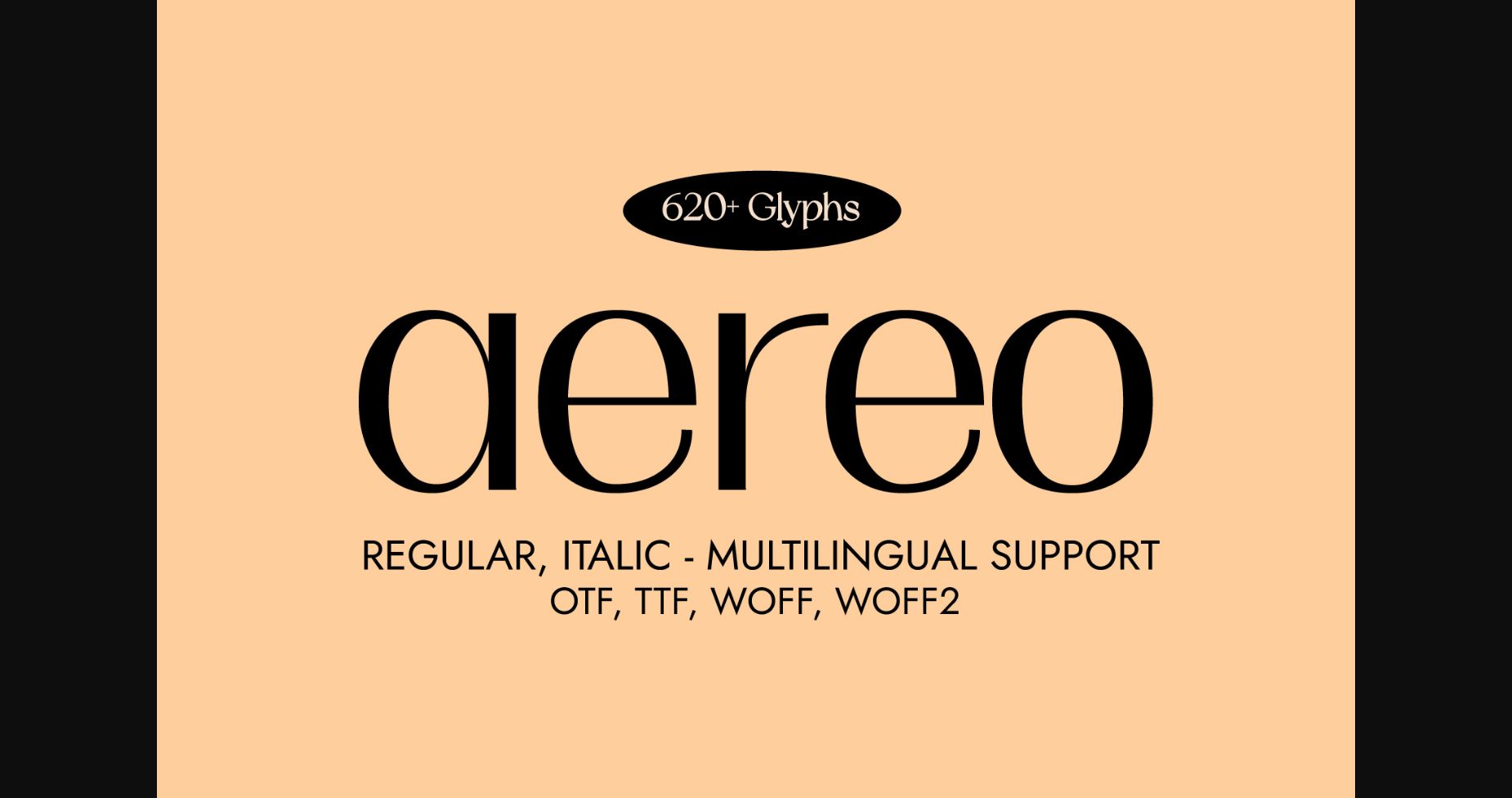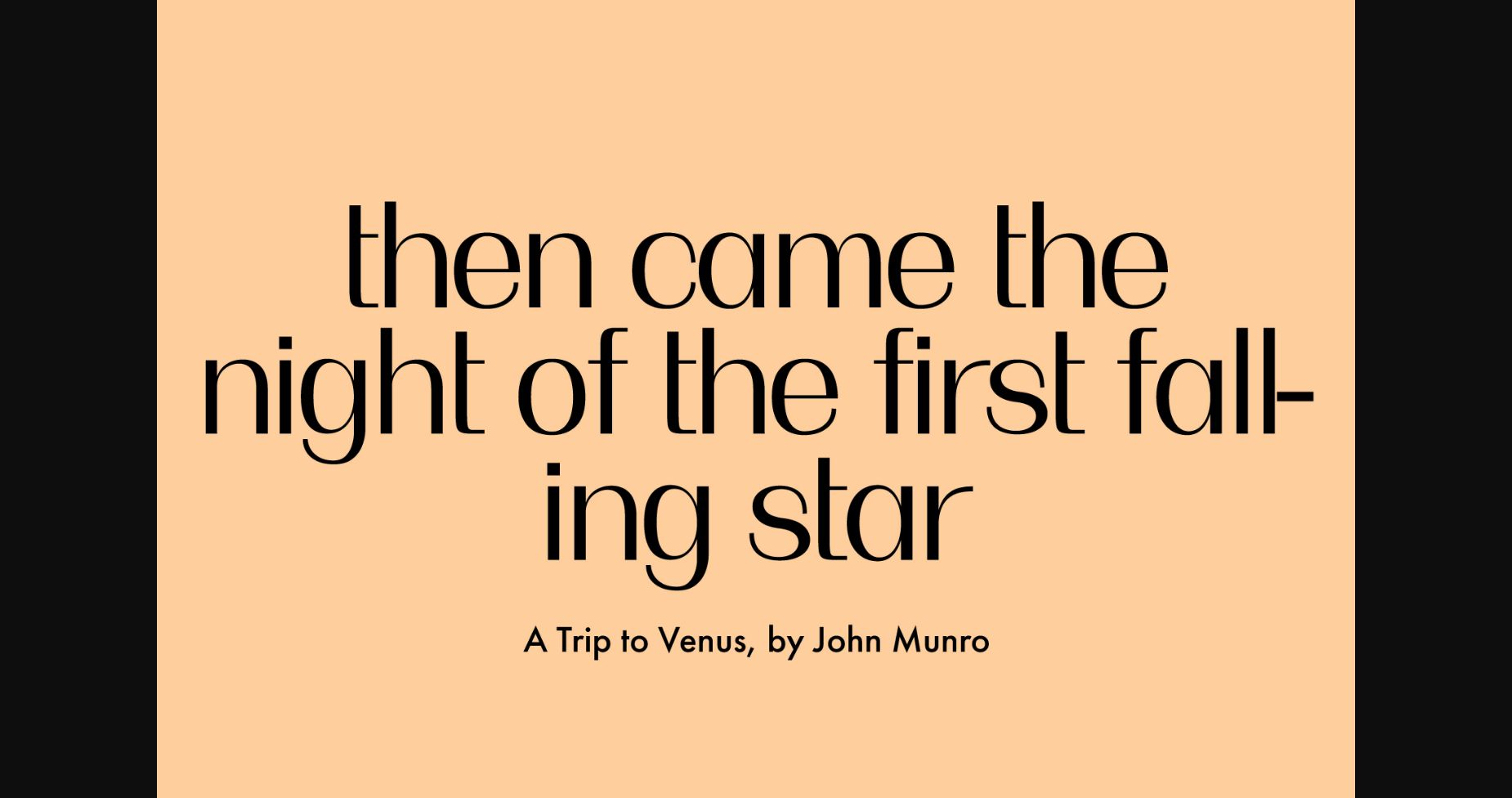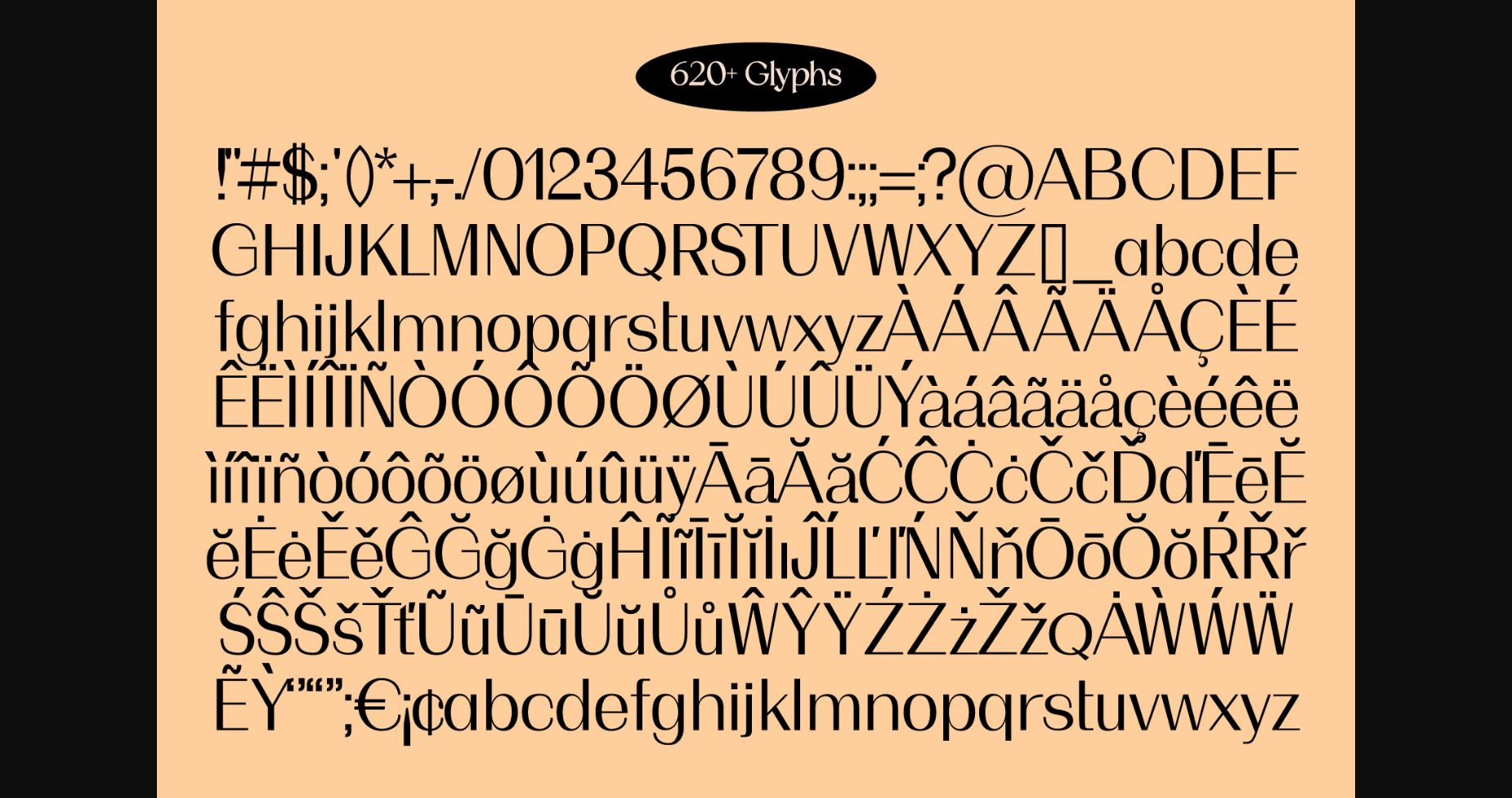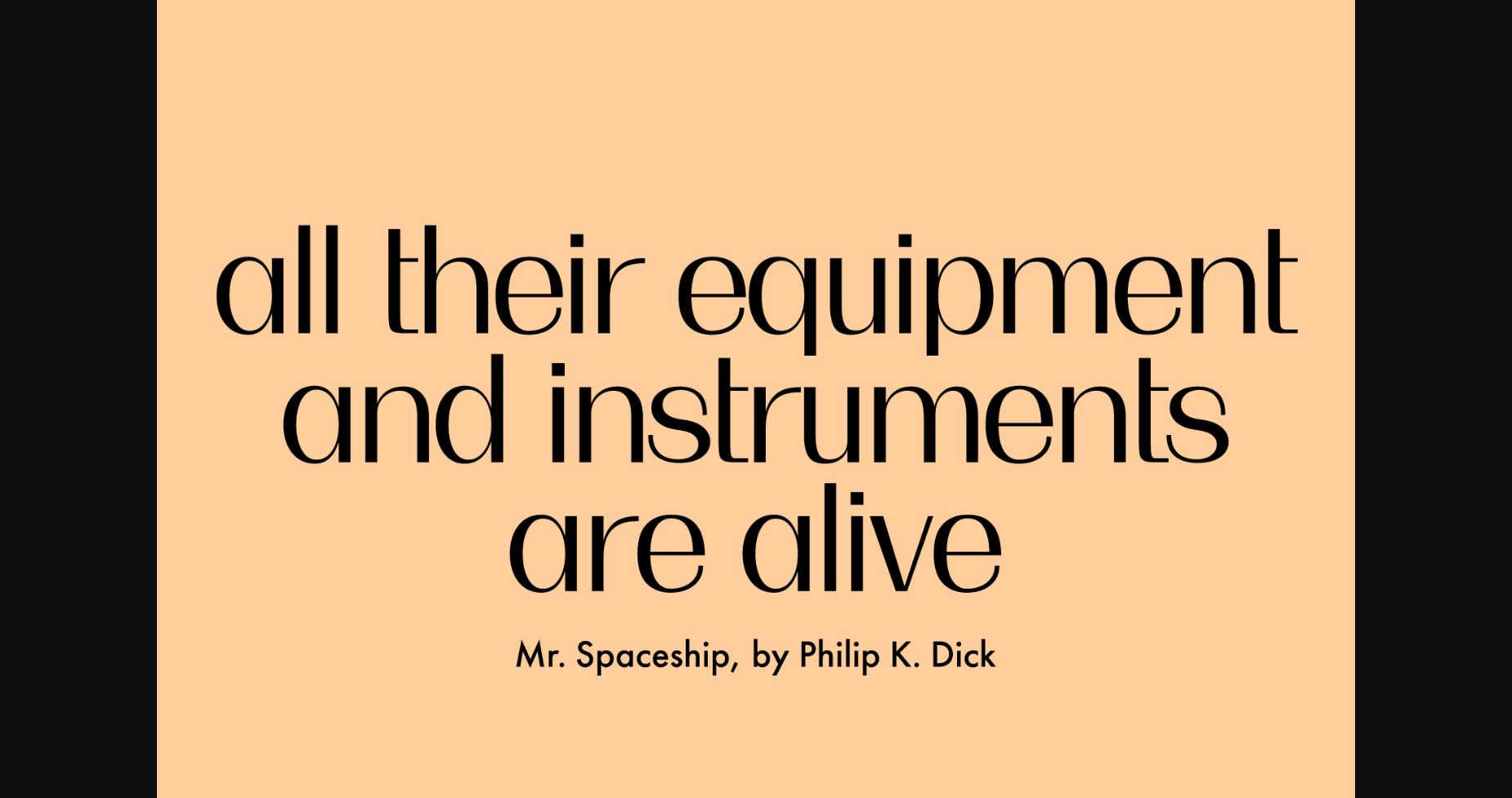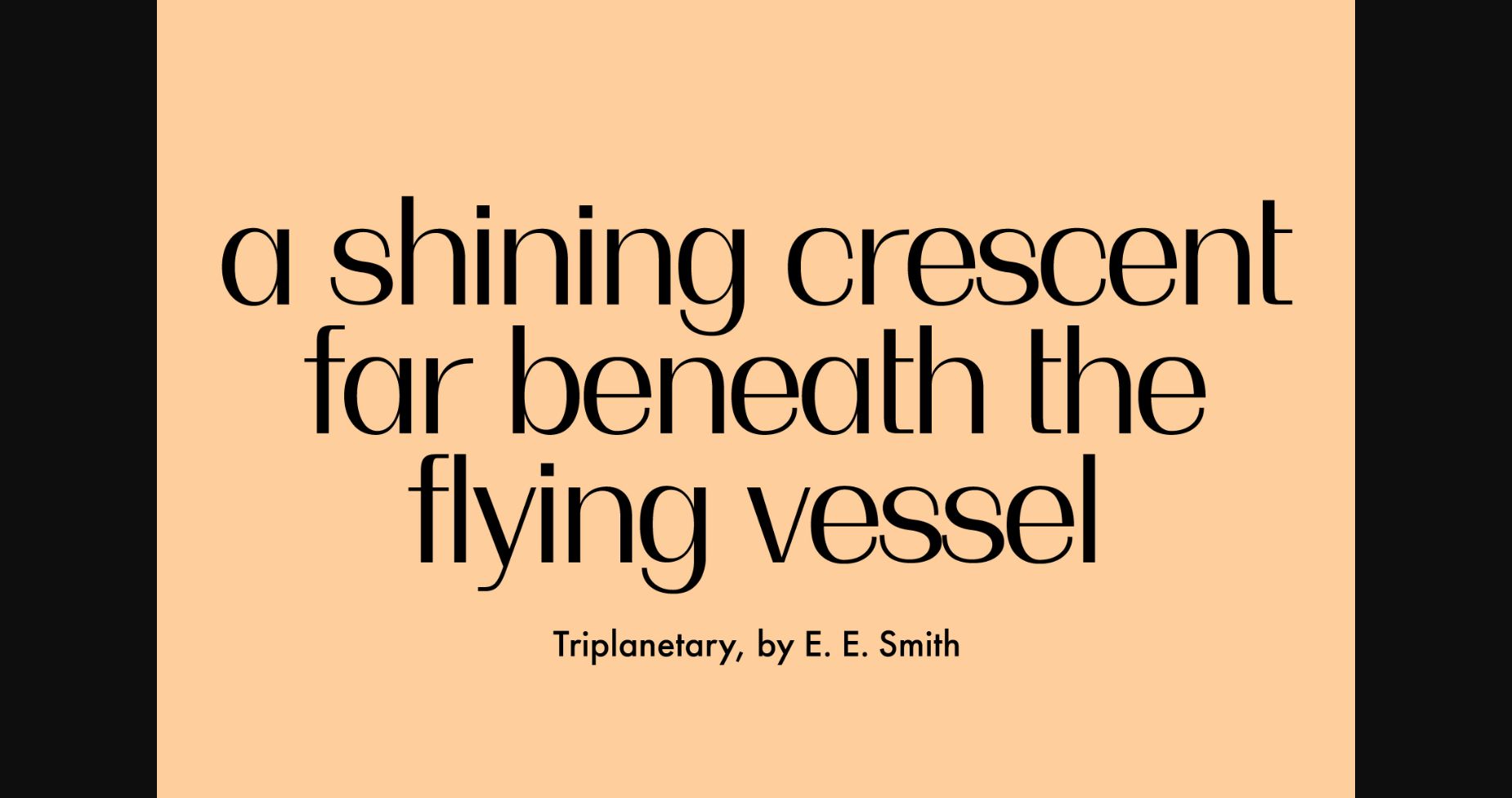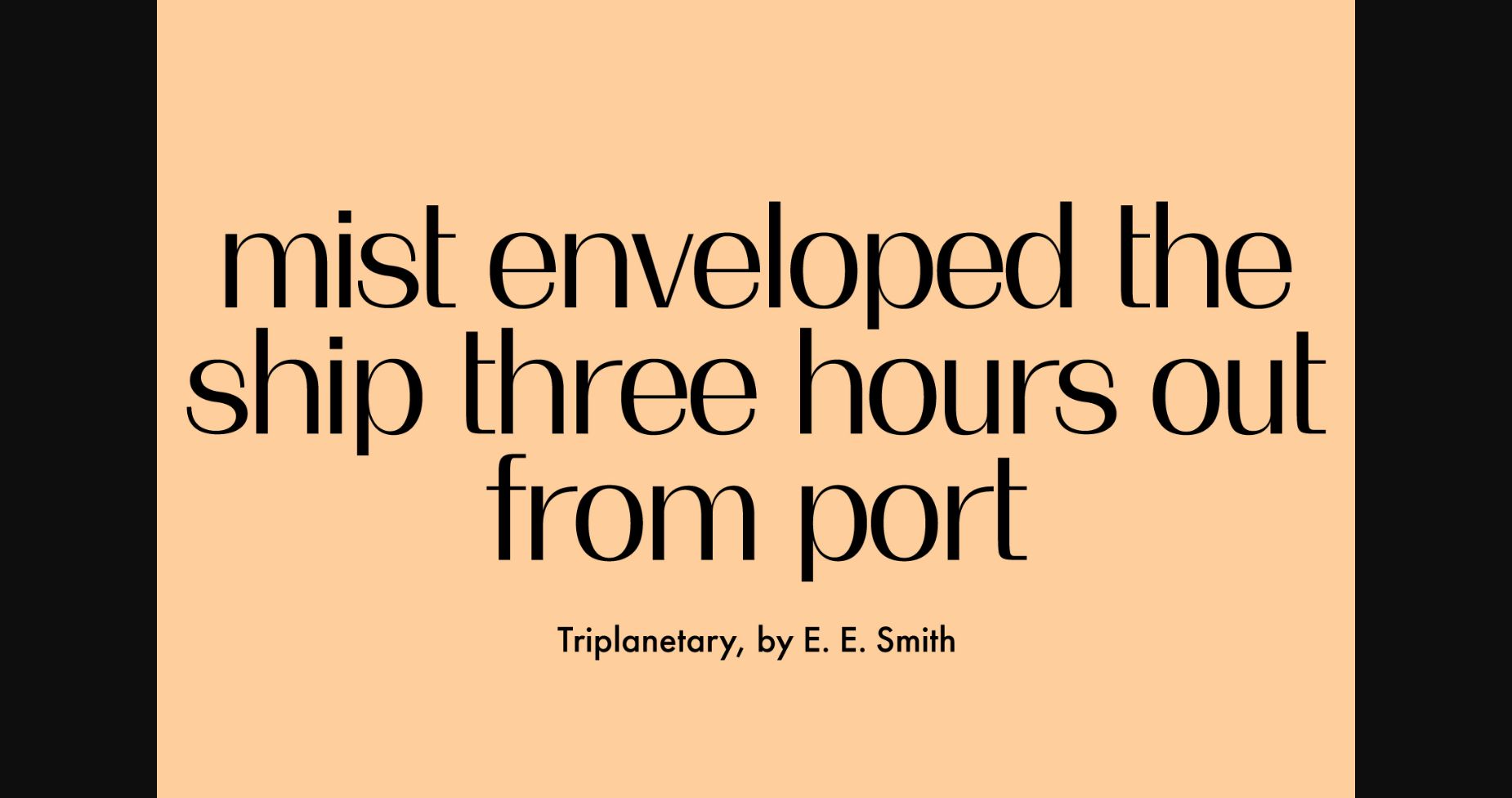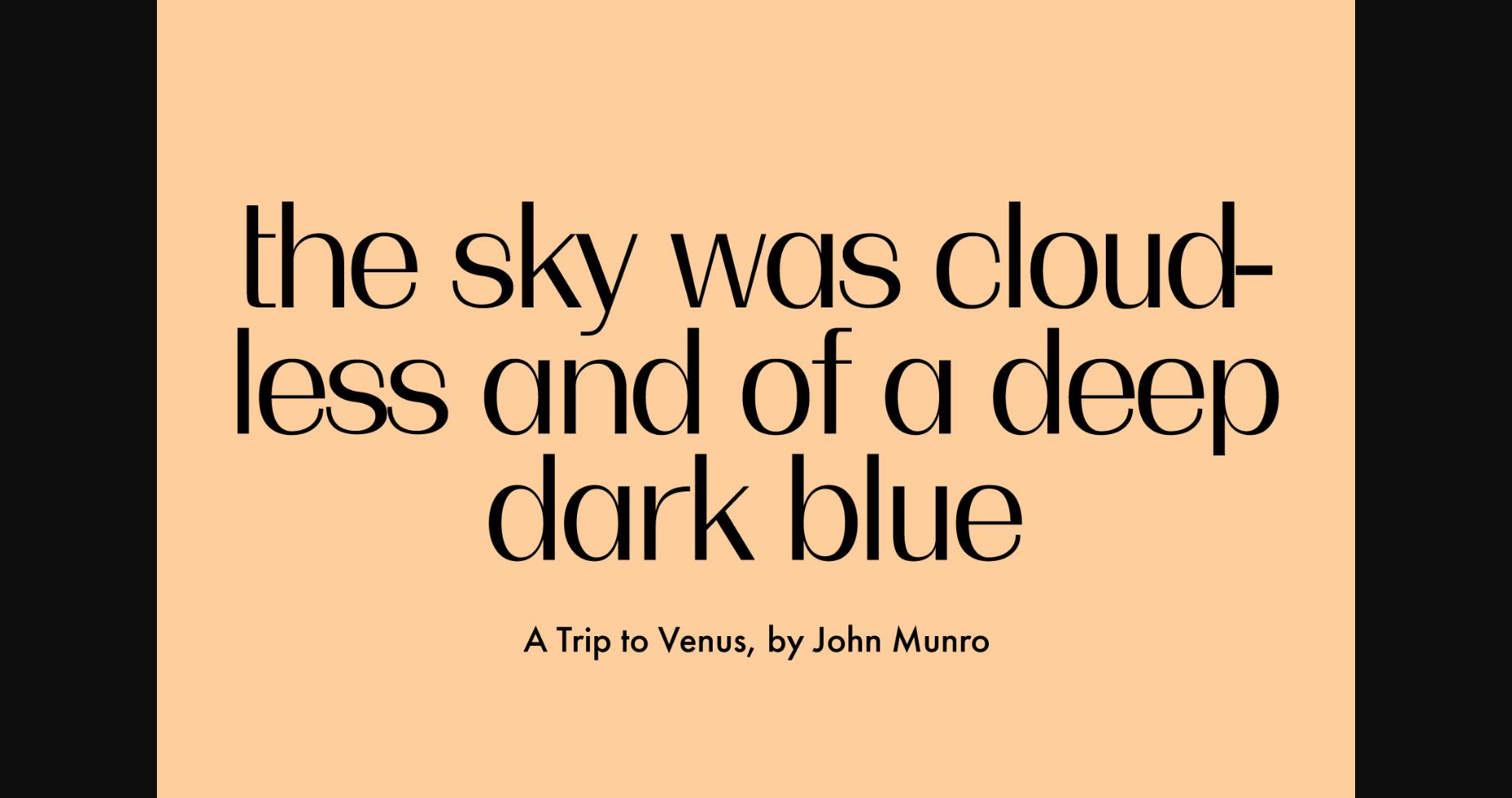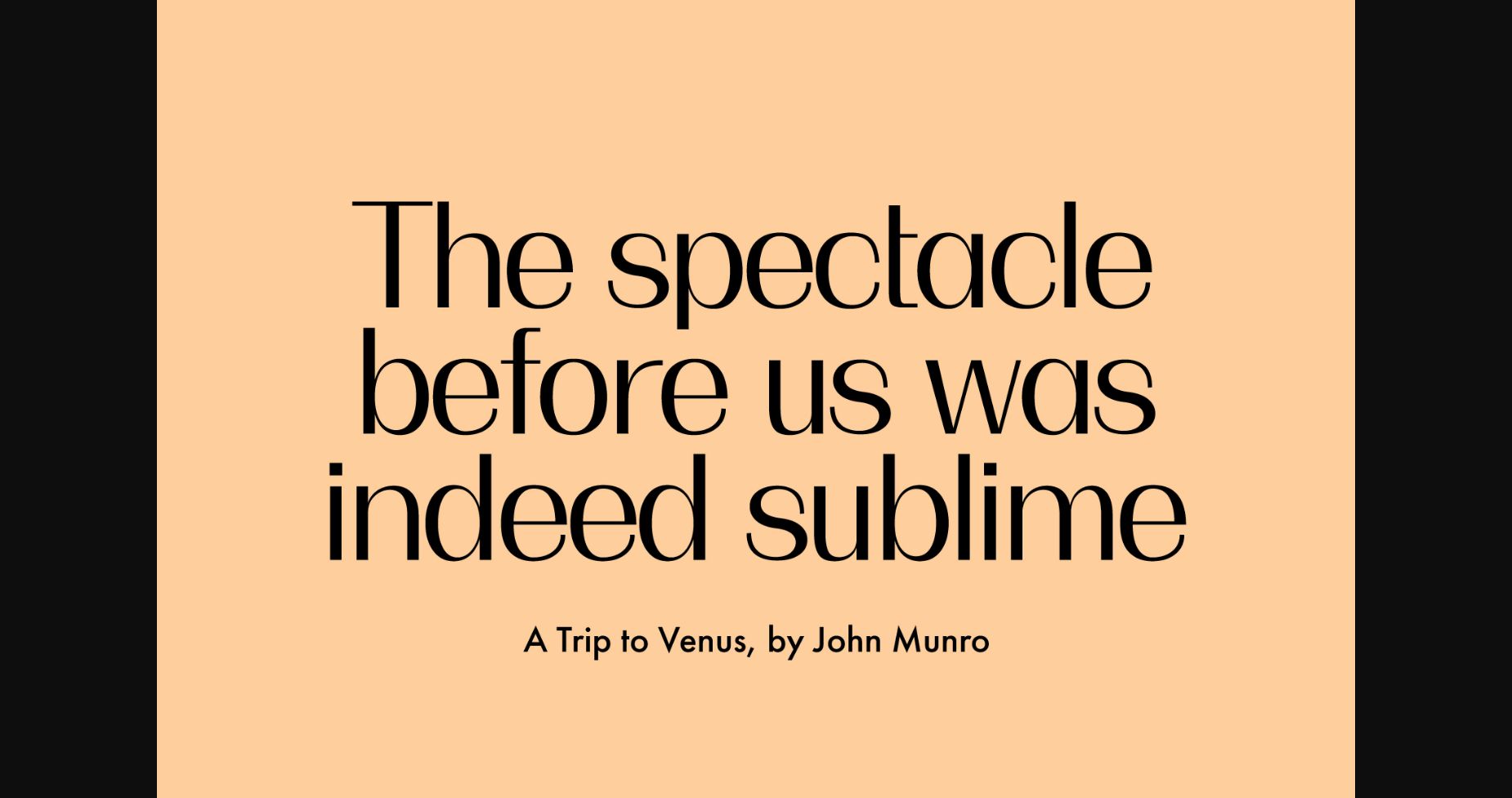
Aereo Font
About Aereo Font
Introducing Aereo – the ultimate sans serif typeface for the modern designer. With over 620 glyphs and multilingual support, Aereo is the perfect choice for your next project. Its minimalist, elegant, and chic design is sure to impress, whether you’re designing a logo, website, or print materials. Aereo’s versatility and clean lines make it perfect for any application, while its multilingual support ensures that your message can be communicated clearly, no matter where in the world your audience is located. Try Aereo today and experience the power of this stunning typeface yourself.